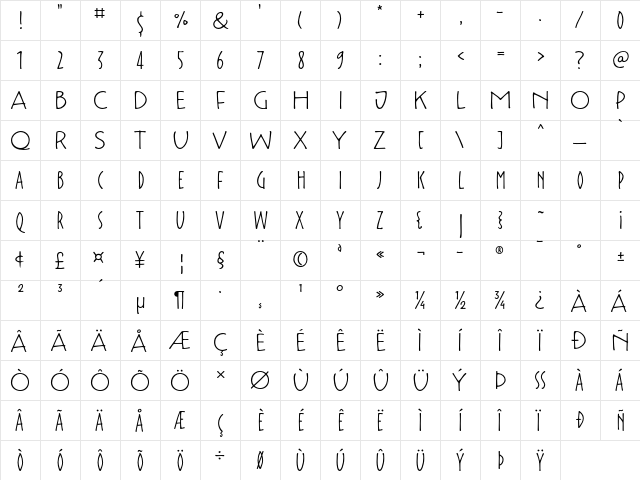
Aram Caps ITC Std Regular
| Designer | Jana Nikolic |
Design Context for Aram Caps ITC Std Typeface
Aram Caps ITC Std takes a measured approach to typography — its balanced proportions and neutral character make it a reliable workhorse for both digital and print work.